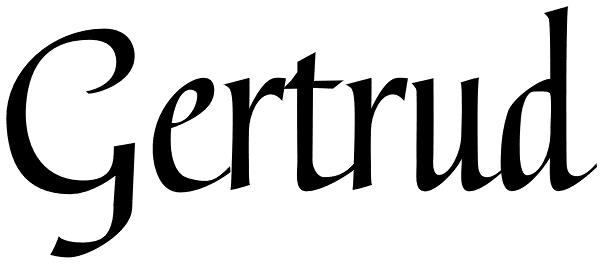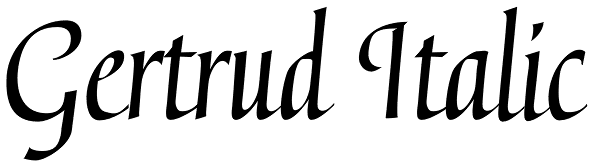
Gertrud
First place in a spelling-bee competition, a Harvard University diploma or the Nobel Peace Prize? You can't go wrong with this classic Swedish calligraphy font, created by veteran designer Bo Berndal. He named Gertrud after his better half, but was...